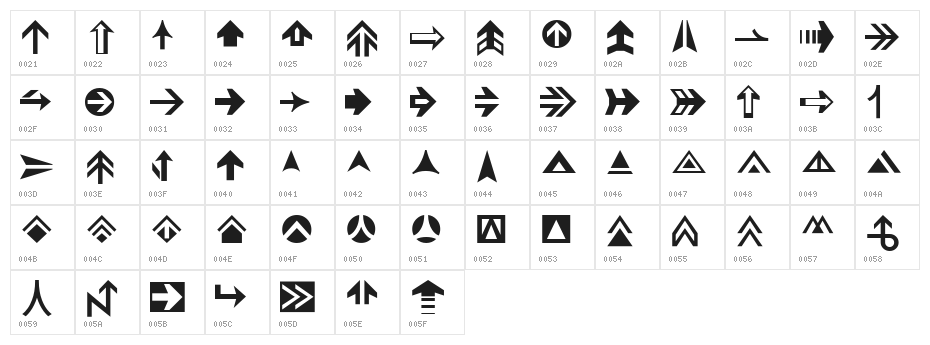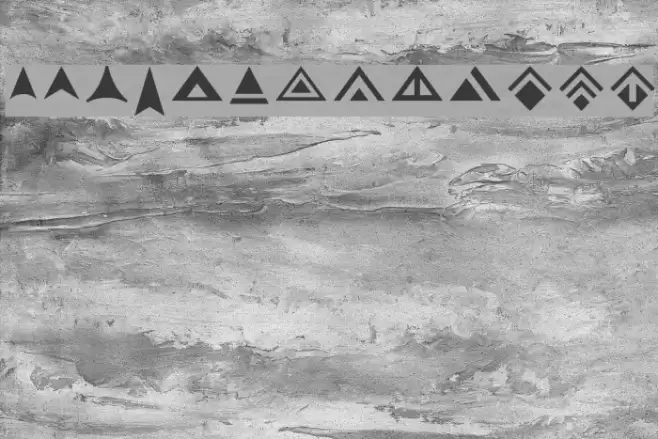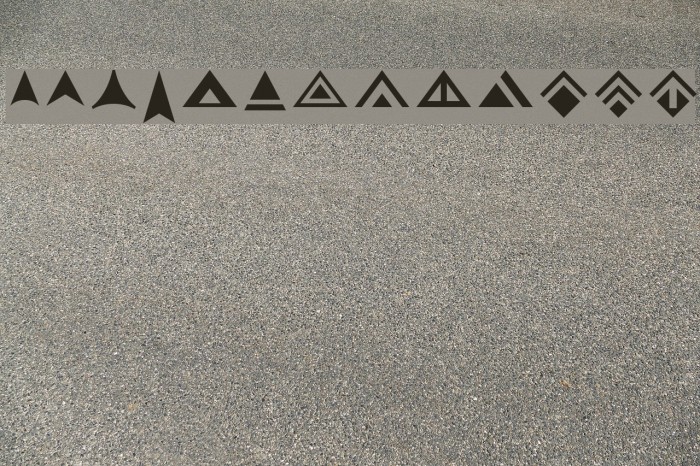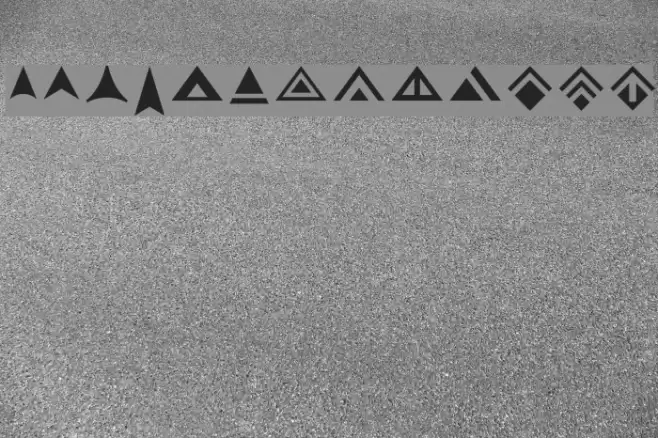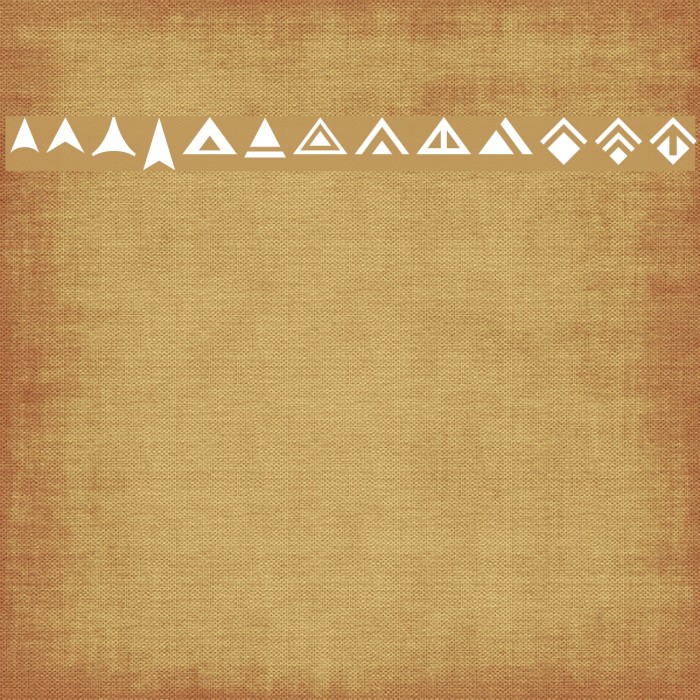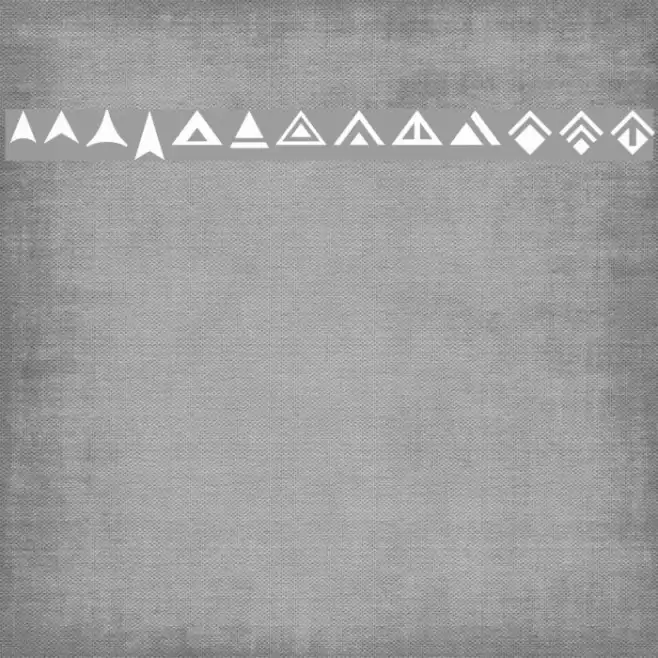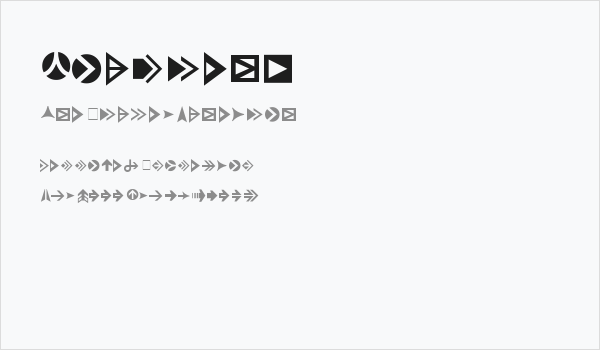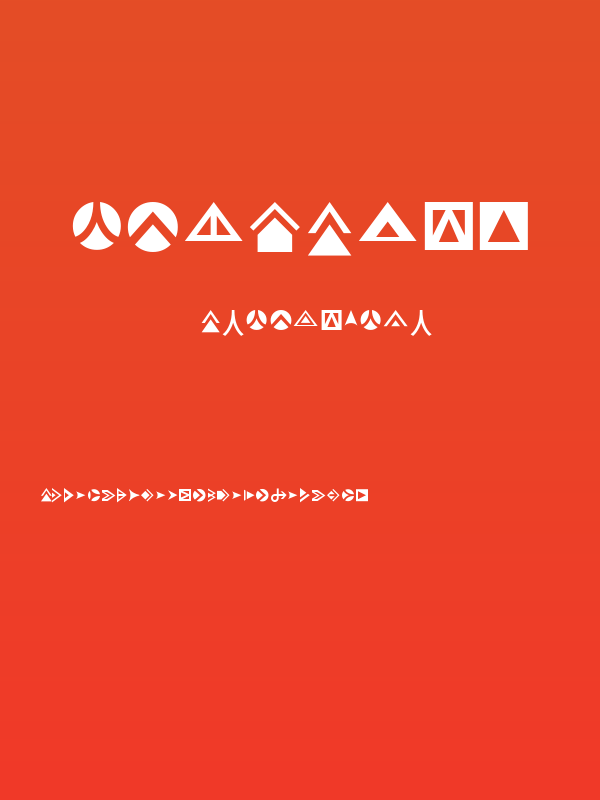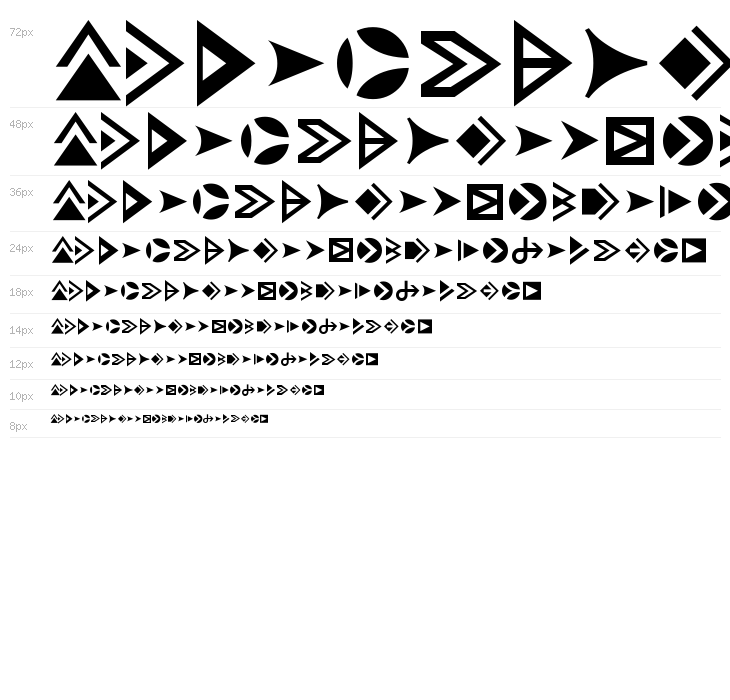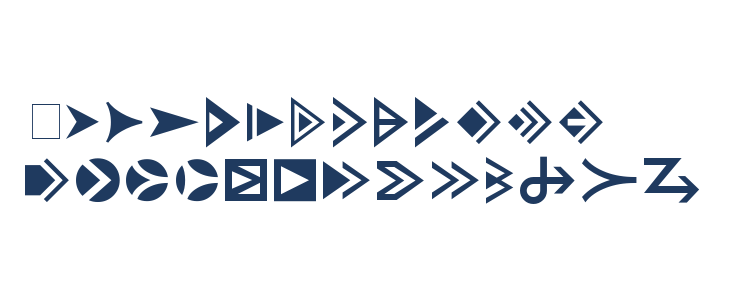
Pointers Font
Pointers Description
This collection features a diverse array of arrow symbols and directional pointers, each with unique geometric designs. The symbols range from simple, bold arrows to intricate, layered designs, incorporating various shapes such as triangles, circles, and squares. The style is predominantly modern and abstract, with a focus on clear directionality and visual impact. The symbols are rendered in solid black, providing a strong contrast against lighter backgrounds. This set is ideal for use in digital interfaces, signage, or any project requiring clear navigational cues.
Proposed ProjectsIdeal for digital interfaces, signage, navigation systems, and graphic design projects requiring clear directional cues.